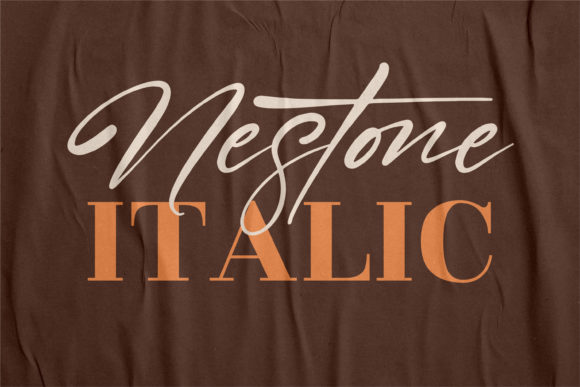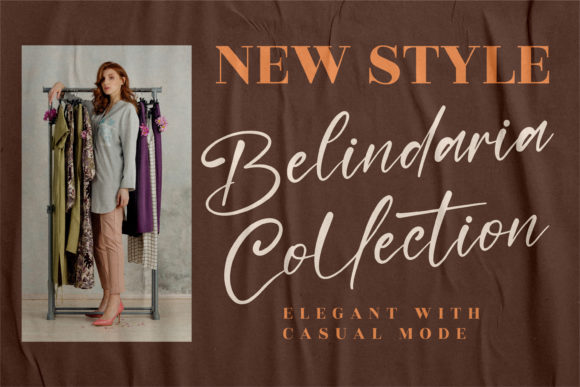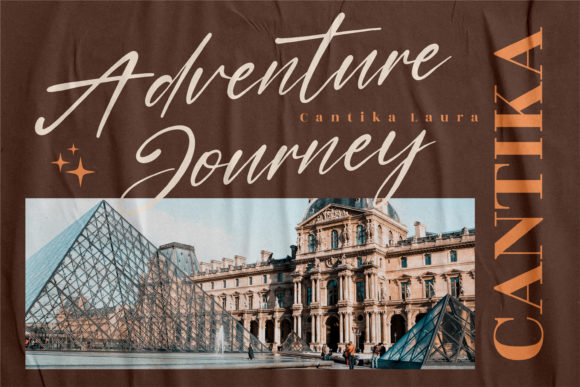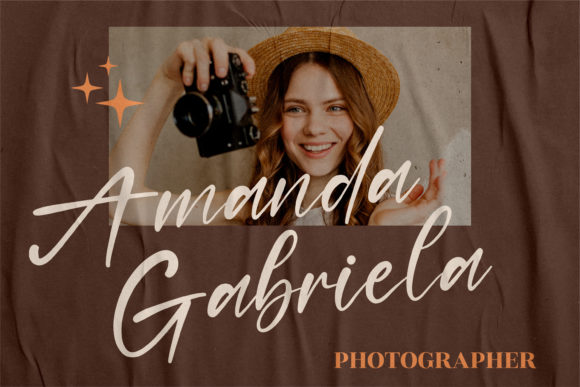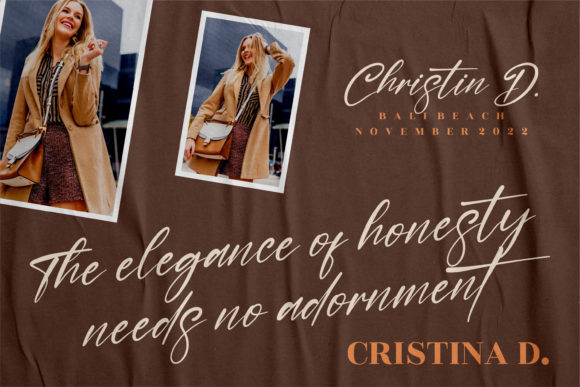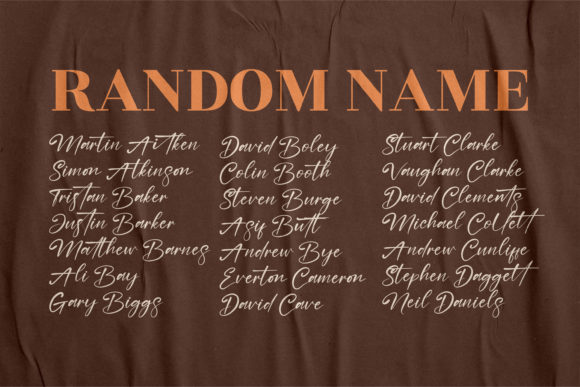
Introduction to Nestone Font
Nestone is a lovely script font featuring charming, playful characters that seem to dance along the baseline.
Nestone is PUA encoded which means you can access all of the glyphs and swashes with ease .
Key Features of Nestone Font